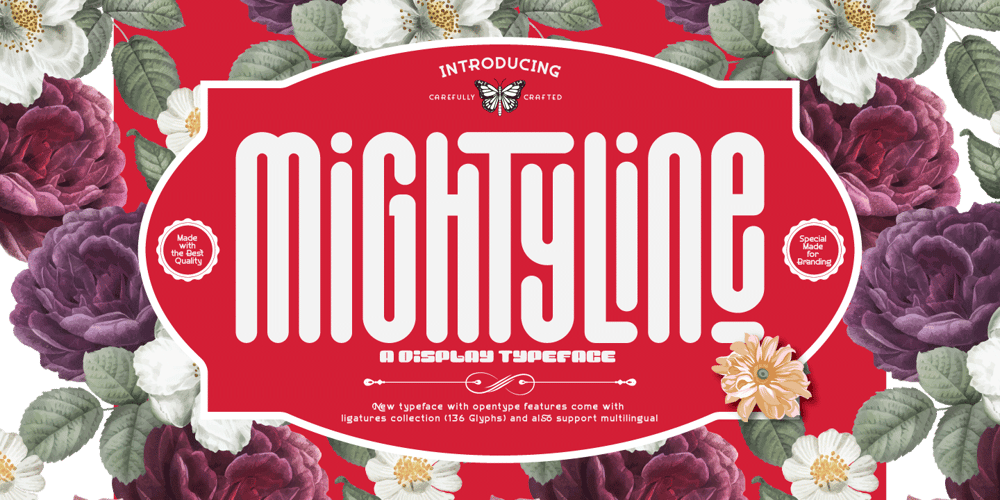
Mightyline Font Family was designed by Ari Juanda and published by Linecreative. Mightyline contains 1 styles and family package options. Mightyline- Ultra Condensed font and Come with ligatures collection, It’s Perfect for logo, name card, magazin layout,headers, or large scale artwork.